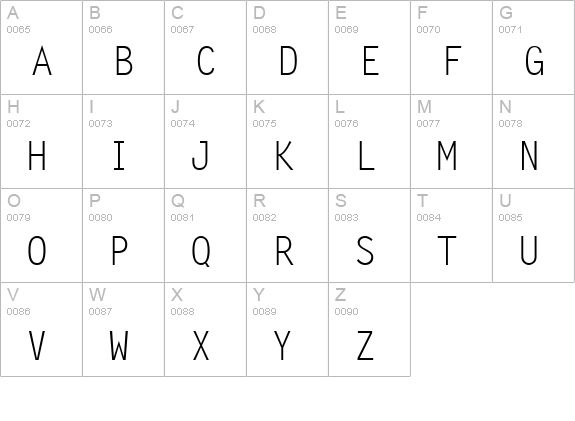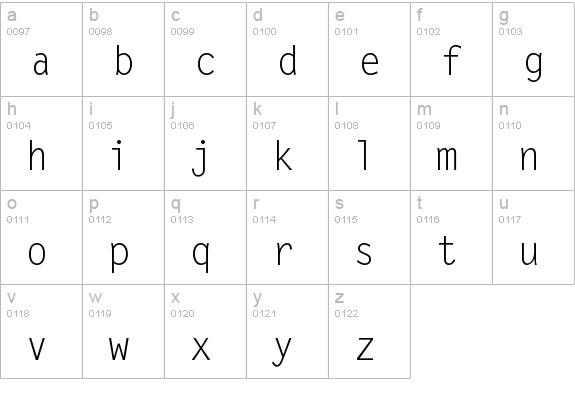
Lechter Normal is the standard, neutral variant in the Lechter typeface family \xE2\x80\x94 well suited to general body text, paragraphs, and standard typographic work.
Lechter Normal is a visually stunning font that exudes elegance and sophistication. Its clean and modern design captures attention with its sleek lines and perfectly balanced proportions. This font is perfect for adding a touch of professionalism to any project, whether it's a logo, website, or marketing materials. What sets Lechter Normal apart is not only its impeccable aesthetics but also its availability as a free download. Yes, you heard that right! Lechter Normal is freely available to download at FontsMarket.com, making it accessible to anyone in need of a high-quality font without breaking the bank. With Lechter Normal, you can effortlessly elevate your designs to new heights. Its versatility allows it to adapt to various styles and contexts, whether it's for a fashion brand, a tech startup, or a creative agency. The clarity and legibility of its letterforms ensure that your message is conveyed with utmost precision. This font is a true testament to the craftsmanship and attention to detail put into its creation. Each character is meticulously designed to maintain a harmonious flow and consistency throughout the typeface, resulting in a visually pleasing reading experience. Whether you're a professional designer or a hobbyist, Lechter Normal is a valuable addition to your font collection. Its timeless appeal and modern sensibilities make it a go-to choice for designers who aim to create impactful and memorable visuals. So, why wait? Head over to FontsMarket.com and download Lechter Normal for free. Unleash your creativity and bring your designs to life with this remarkable font.